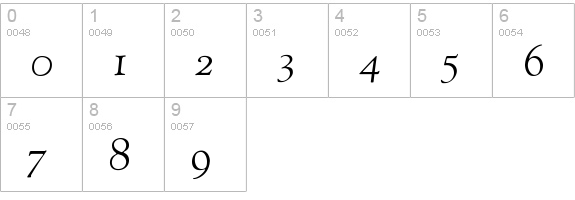
GoudyOldStyleItalic Font Details
Goudy Old Style Italic font exudes a timeless elegance with its graceful slanted design and classic serifs. Perfect for adding a touch of sophistication to your projects, this font brings a sense of refinement and tradition to any text. Its italicized form lends a touch of flair and style, making it ideal for conveying a sense of sophistication and class. Best of all, Goudy Old Style Italic font is available for free download at FontsMarket.com. Whether you're creating invitations, posters, or branding materials, this font is sure to elevate your designs with its timeless charm and stylish appeal. Embrace the classic beauty of Goudy Old Style Italic font and make a lasting impression with your next project.